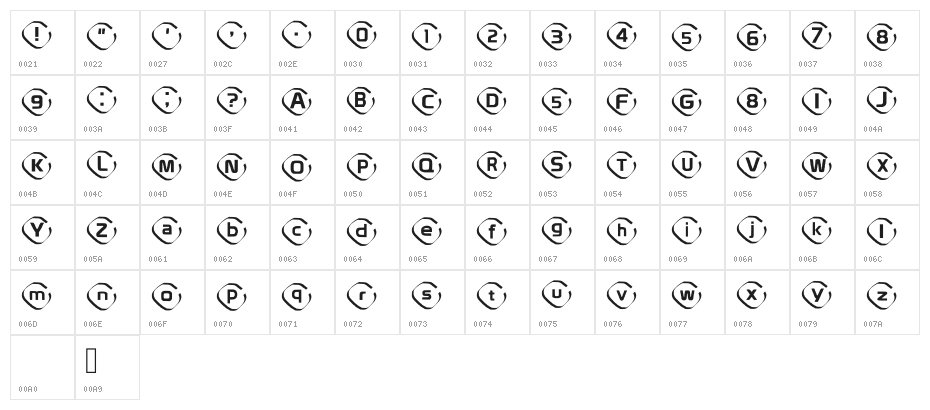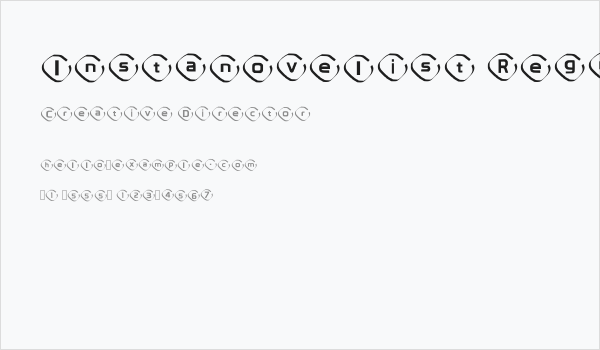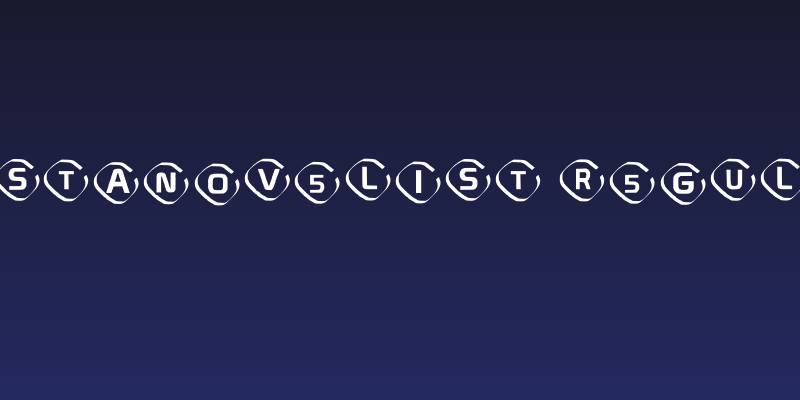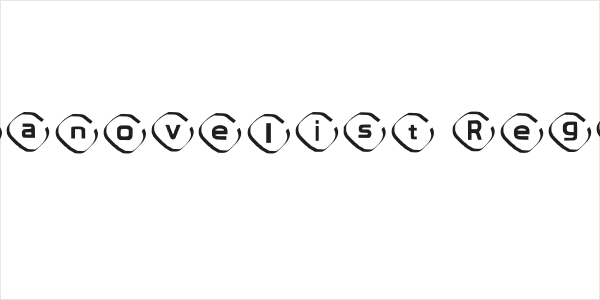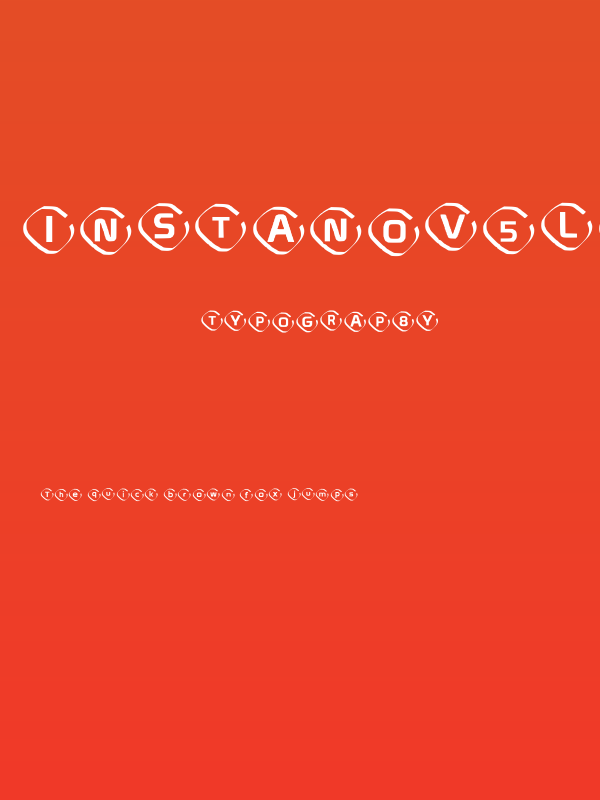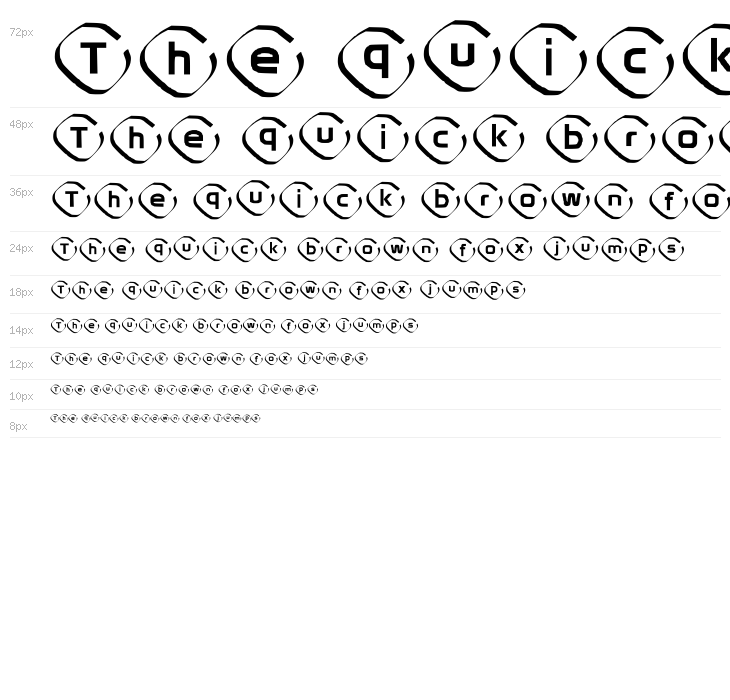
Instanovelist Regular Font
Instanovelist Regular Description
This font features a unique and playful design with each character enclosed in a rounded, irregular hexagonal shape. The letters and numbers are bold and slightly condensed, with a modern and artistic flair. The strokes are consistent in thickness, providing a medium contrast that enhances readability while maintaining a decorative appeal. The overall style is contemporary and eye-catching, making it suitable for creative projects that require a distinctive and memorable typeface.
Instanovelist Font
| Proposed Projects | Ideal for branding, posters, album covers, and any creative project that seeks a standout, artistic typeface. |